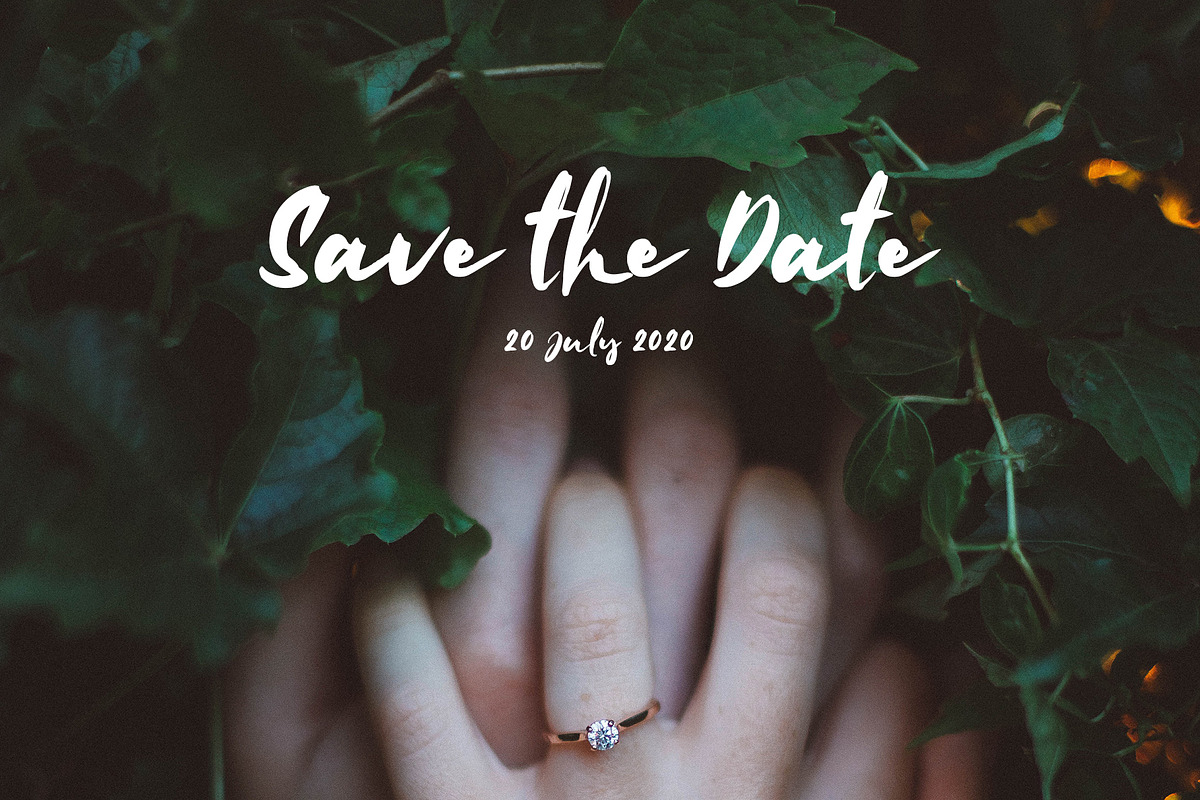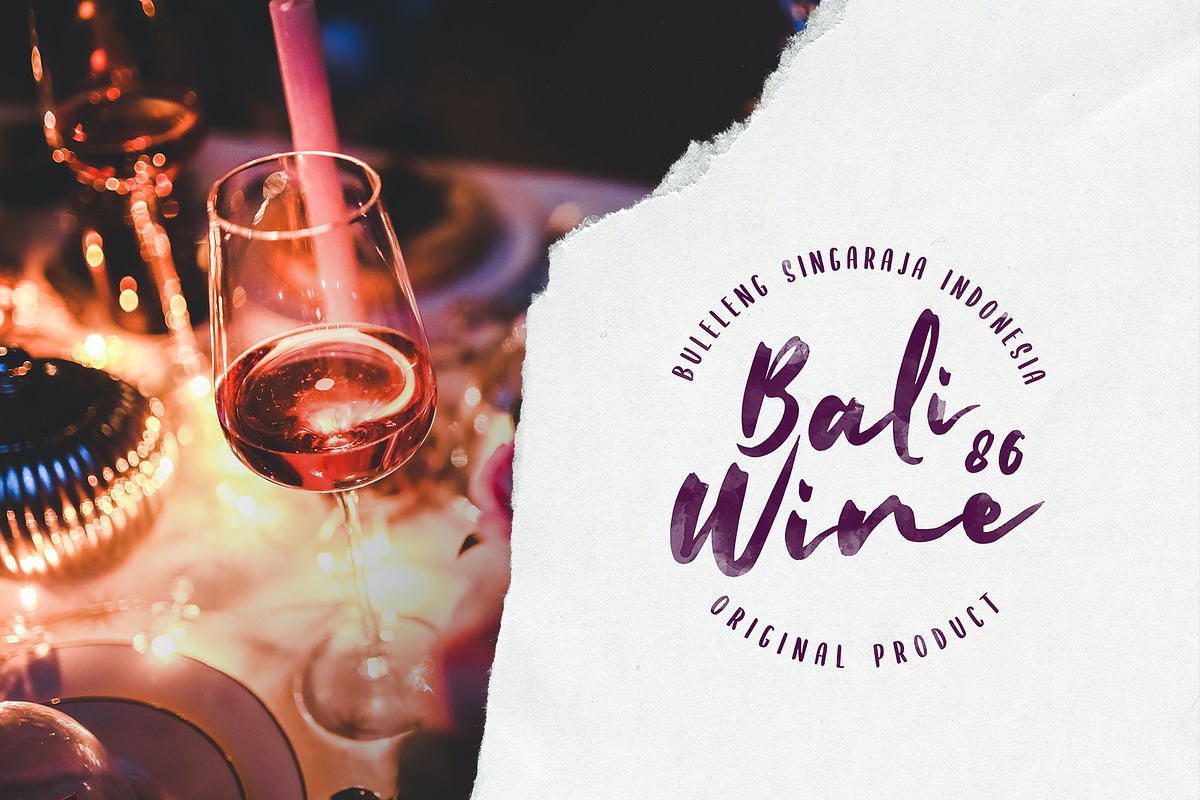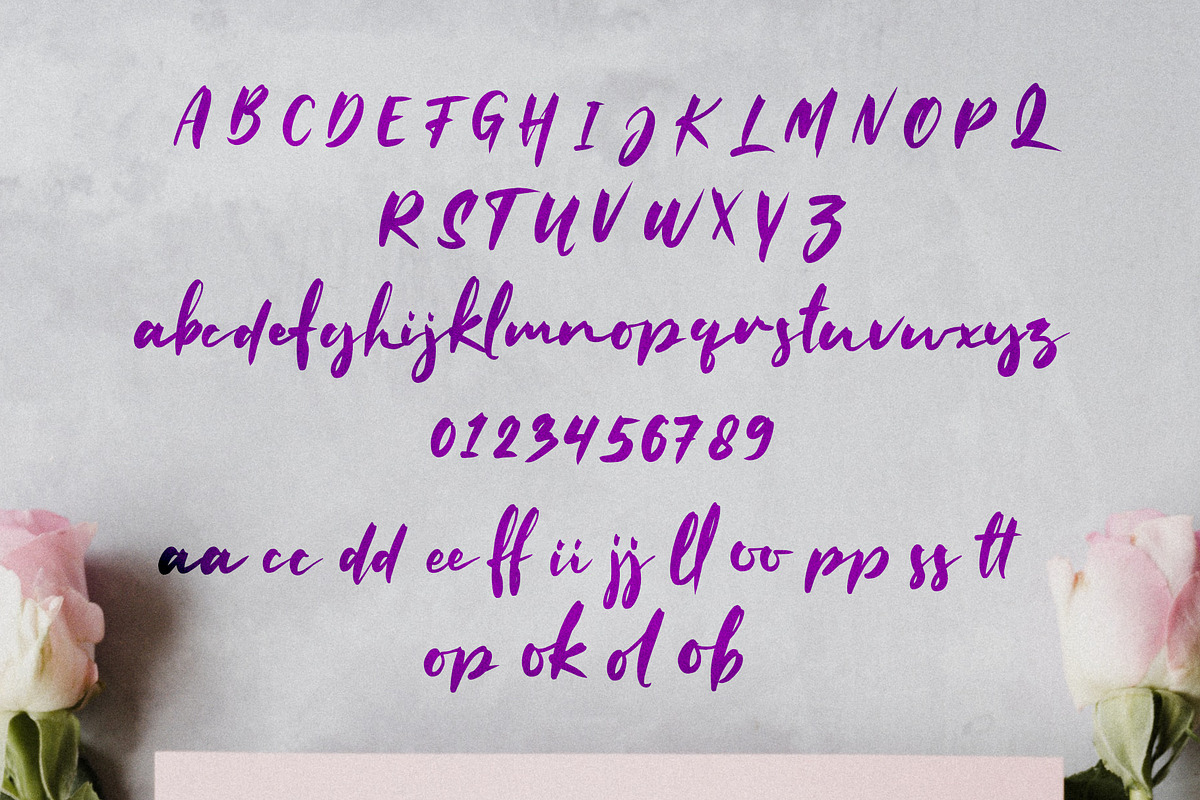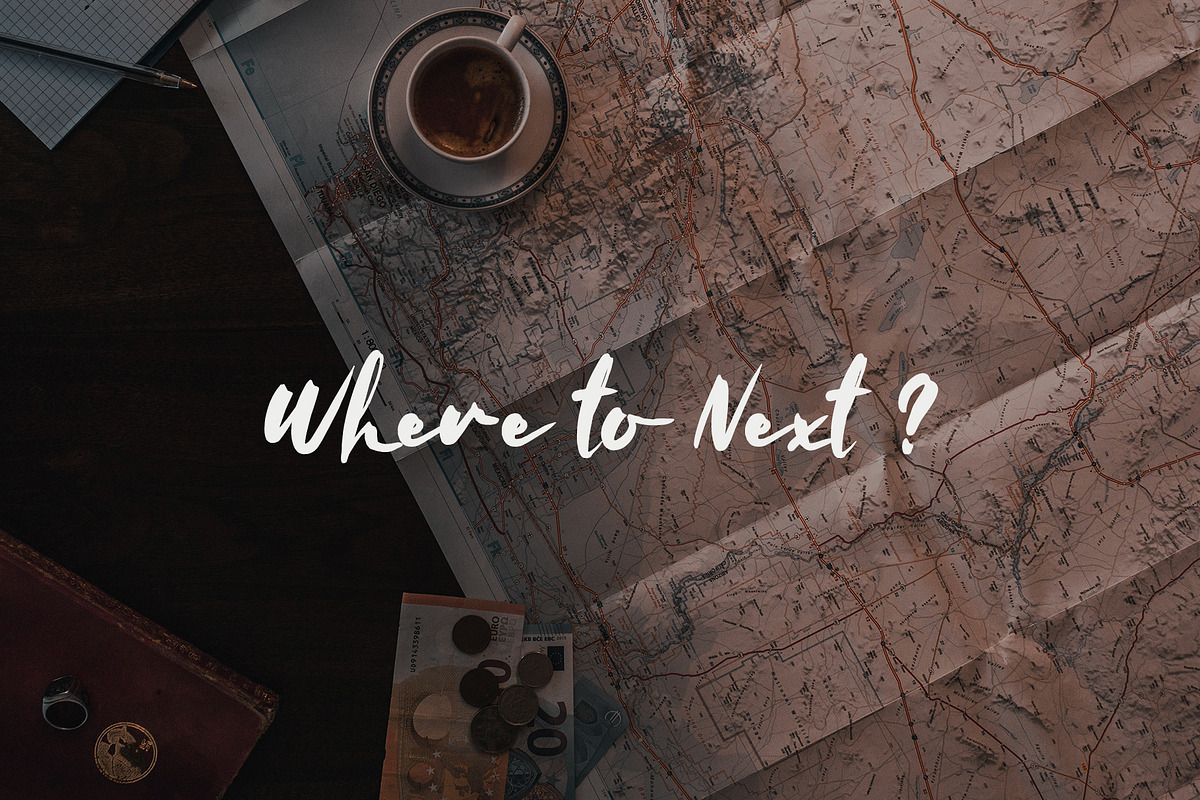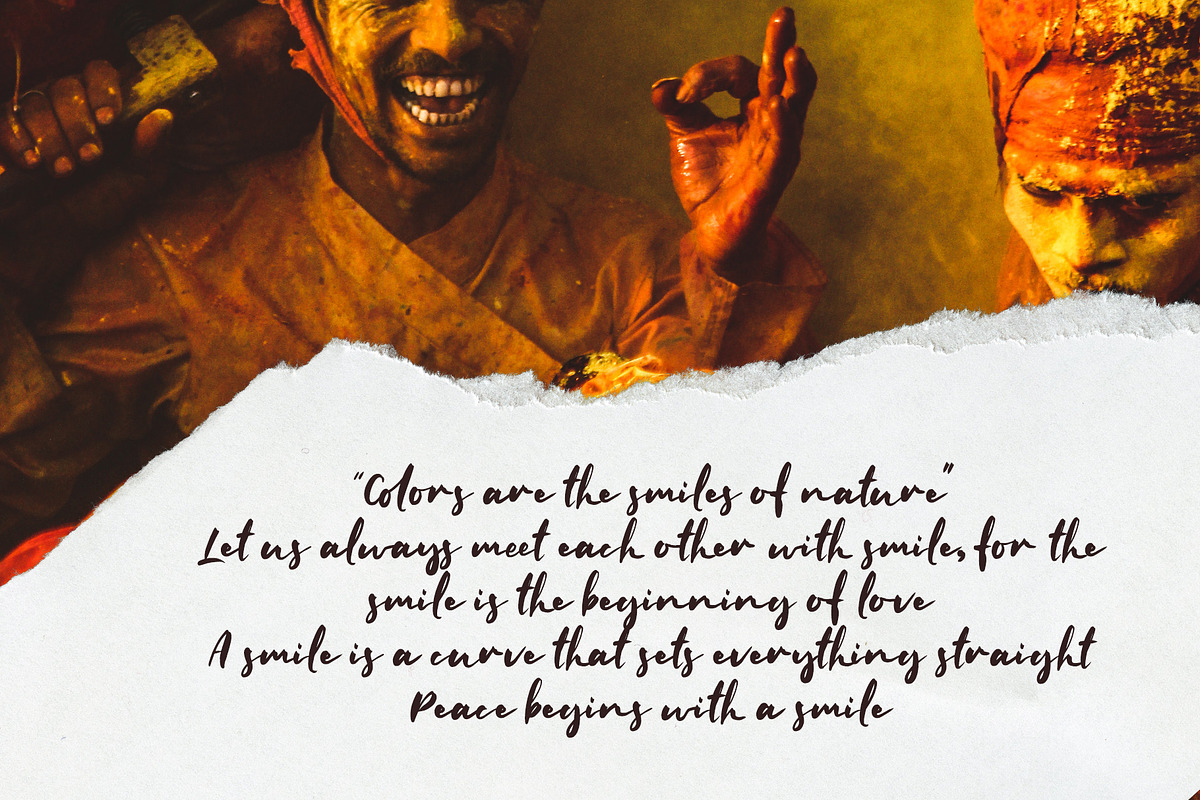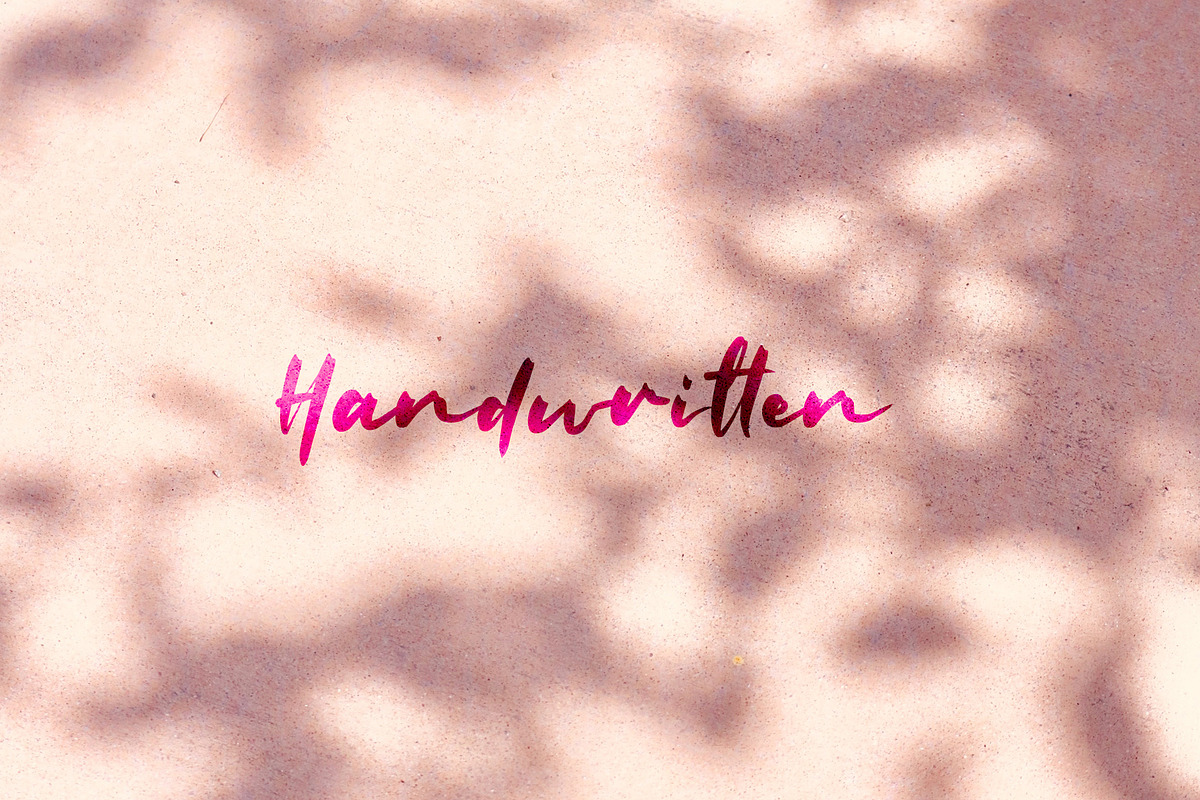
Mallent Font + Bonus
Introducing Mallent font in the style of natural handwritten script. I made this font from the character of a natural brush with strokes that are firm and spontaneous but still look beautiful and cute. Mallent font is perfect for making designs with natural concepts, daring to be different, unique and still elegant. Besides this font is very easy to be combined with illustrations or natural photos.
Mallent fonts are worthy of being a collection font at the beginning of 2020 for your design projects in the future or at present. This font is perfect for wedding designs, adventure, romantic, natural and brave.